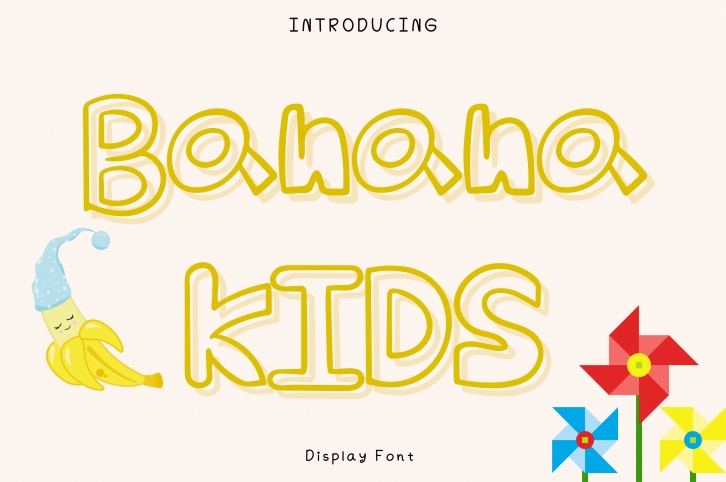
Banana Kids Style is a whimsical and outlined display font. It can easily be matched to an incredibly large set of projects, so add it to your creative ideas and notice how it makes them stand out!